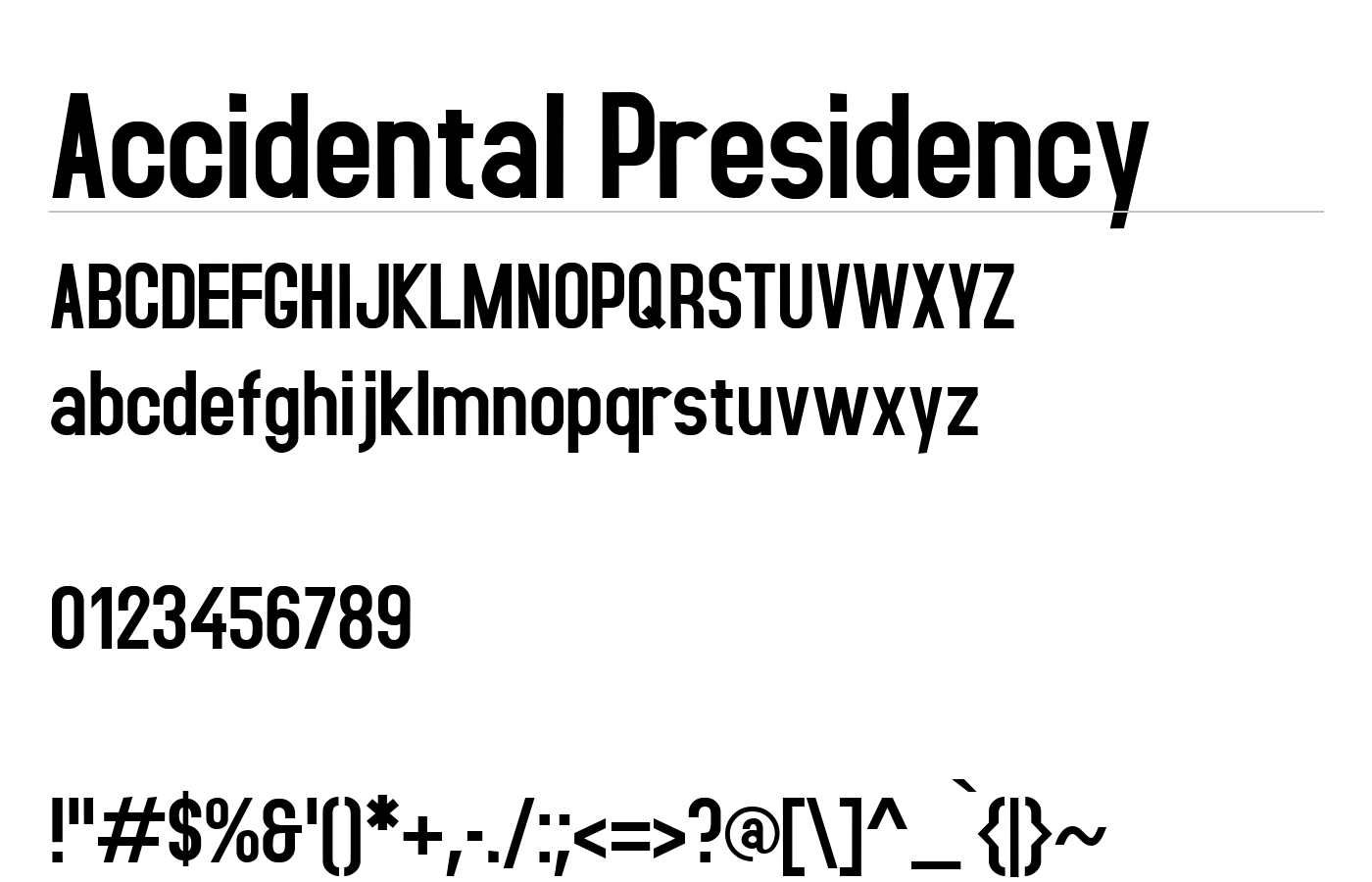
Accidental Presidency is a bold, condensed sans-serif font featuring clean, straight lines and a strong presence. Its tall x-height and uniform stroke width give it a modern, no-nonsense look that works well for impactful headlines, branding, and editorial designs that require clarity and authority. This font’s straightforward style makes it ideal for projects aiming for a confident, contemporary feel.
Accidental Presidency Font